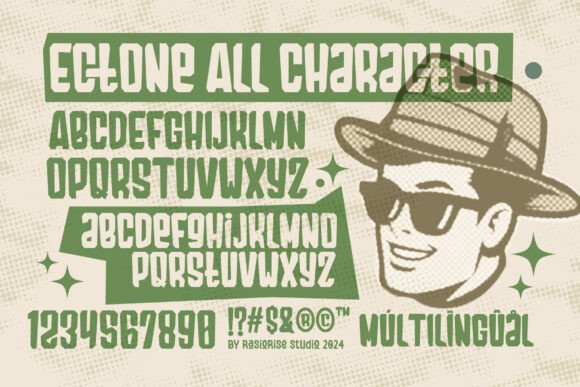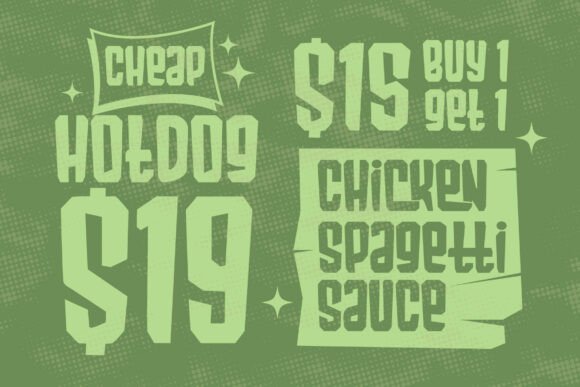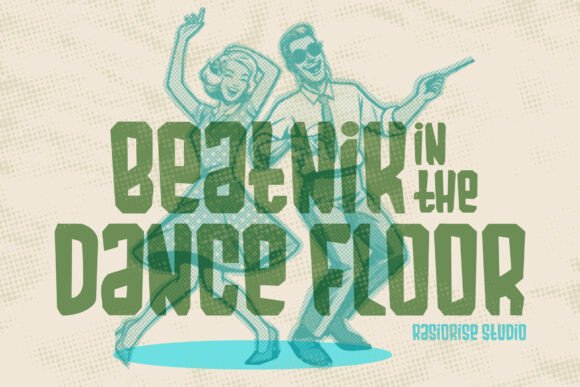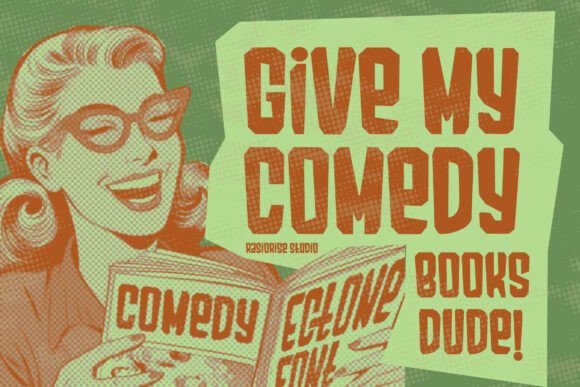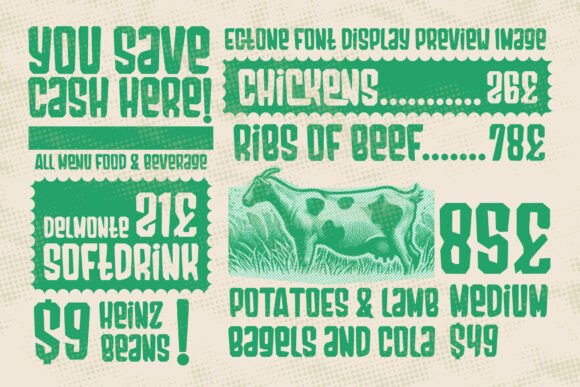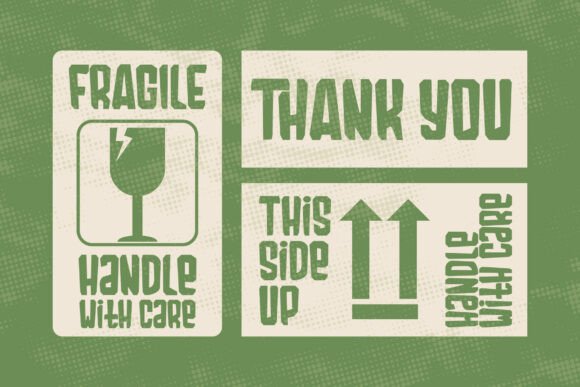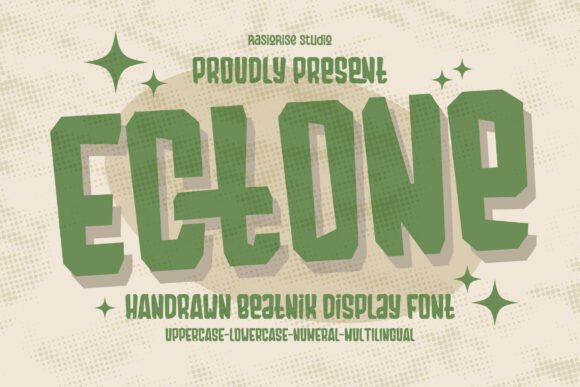
Ectone Font: A Beatnik Display Font for the Free-Spirited Designer
Are you a designer or crafter looking for a unique typeface that captures the essence of the ’60s, ’70s, and ’80s counter-culture movement? Look no further than Ectone Font, a Beatnik Display Font that embodies the spirit of anti-conformity and freestyle creativity. Inspired by the iconic Beatnik Poster and Headline Sans-Serif Style fonts, Ectone Font combines vintage charm with a hand-drawn, raw aesthetic that’s perfect for adding a touch of nostalgia to any project.
The Beatnik Era: A Time of Creative Revolution
The Beatnik era, which spanned from the late 1940s to the mid-1960s, was a time of great creative revolution. Characterized by a rejection of mainstream culture and a desire for nonconformity, the Beatnik movement celebrated free expression, spontaneity, and experimentation. This ethos was reflected in the art, literature, and design of the time, which often featured bold, playful, and unconventional typography.
Ectone Font: A Nod to the Past with a Modern Twist
Ectone Font is a sans-serif font that pays homage to the iconic typography of the Beatnik era. With its intentionally irregular shapes and hand-drawn feel, Ectone Font is the perfect choice for designers and crafters looking to add a touch of vintage flair to their work. The font’s unique character is inspired by the Beatnik Poster and Headline Sans-Serif Style fonts, but with a modern twist that makes it perfect for use in a variety of creative projects.
Key Features of Ectone Font
- Unique Beatnik-inspired design: Ectone Font features a distinctive sans-serif design that’s reminiscent of the iconic typography of the Beatnik era.
- Hand-drawn feel: The font’s irregular shapes and hand-drawn aesthetic give it a raw, vintage feel that’s perfect for adding a touch of nostalgia to any project.
- Vintage charm: Ectone Font is inspired by the classic typography of the ’60s, ’70s, and ’80s, making it perfect for use in projects that require a retro or vintage vibe.
- Perfect for display text: Ectone Font is designed specifically for use in display text, making it ideal for use in headlines, titles, and other prominent text elements.
Uses for Ectone Font
Ectone Font is a versatile typeface that can be used in a variety of creative projects, including:
- Graphic design: Ectone Font is perfect for use in graphic design projects, such as posters, flyers, and brochures.
- Branding and packaging: The font’s unique character makes it a great choice for use in branding and packaging projects, such as logos, labels, and product packaging.
- Web design: Ectone Font can be used in web design projects, such as website headers, titles, and other display text elements.
- Crafting and DIY projects: The font’s hand-drawn aesthetic makes it a great choice for use in crafting and DIY projects, such as handmade cards, invitations, and other paper crafts.
Tips for Using Ectone Font
Here are a few tips for getting the most out of Ectone Font:
- Use it sparingly: Ectone Font is a bold and eye-catching typeface, so it’s best to use it sparingly to avoid overwhelming the viewer.
- Pair it with a simple font: Ectone Font’s unique character can be paired with a simple font to create a striking contrast.
- Experiment with colors and textures: The font’s hand-drawn aesthetic makes it a great choice for use with bold colors and textures.
| Font Name | Ectone Font |
| Author | Rasiorise Studio |